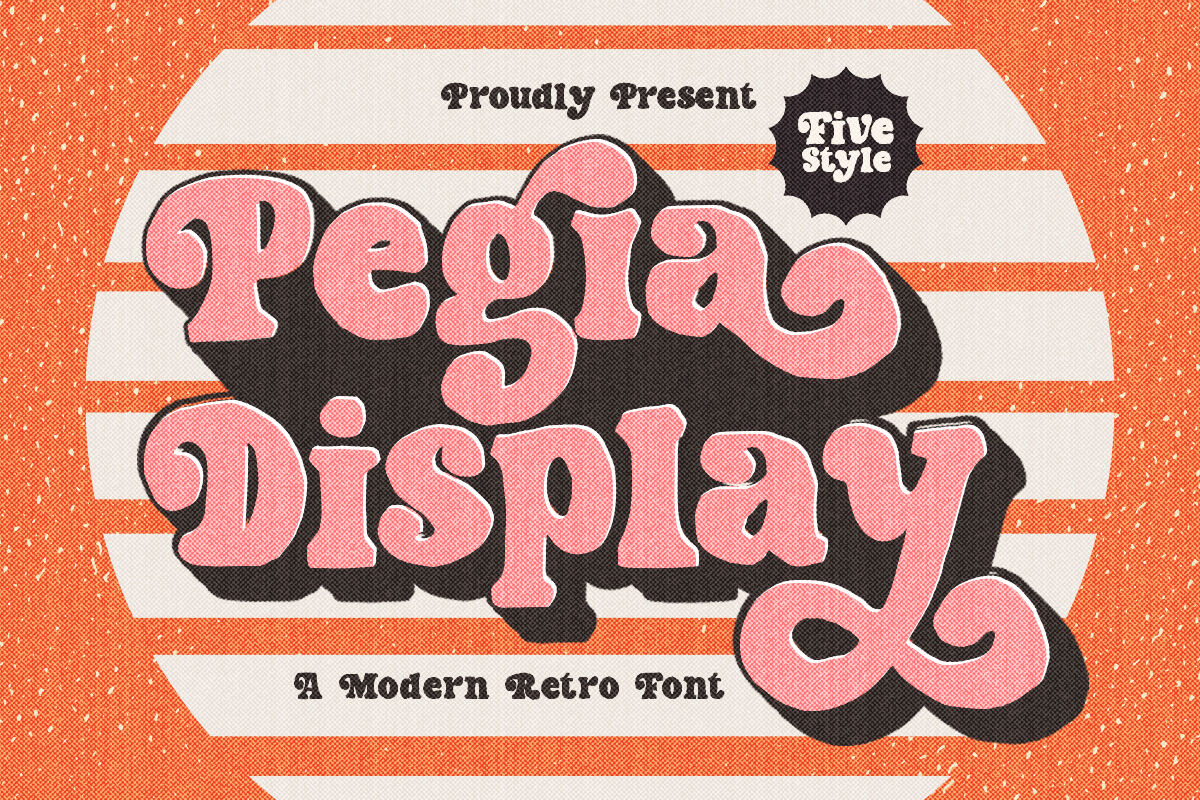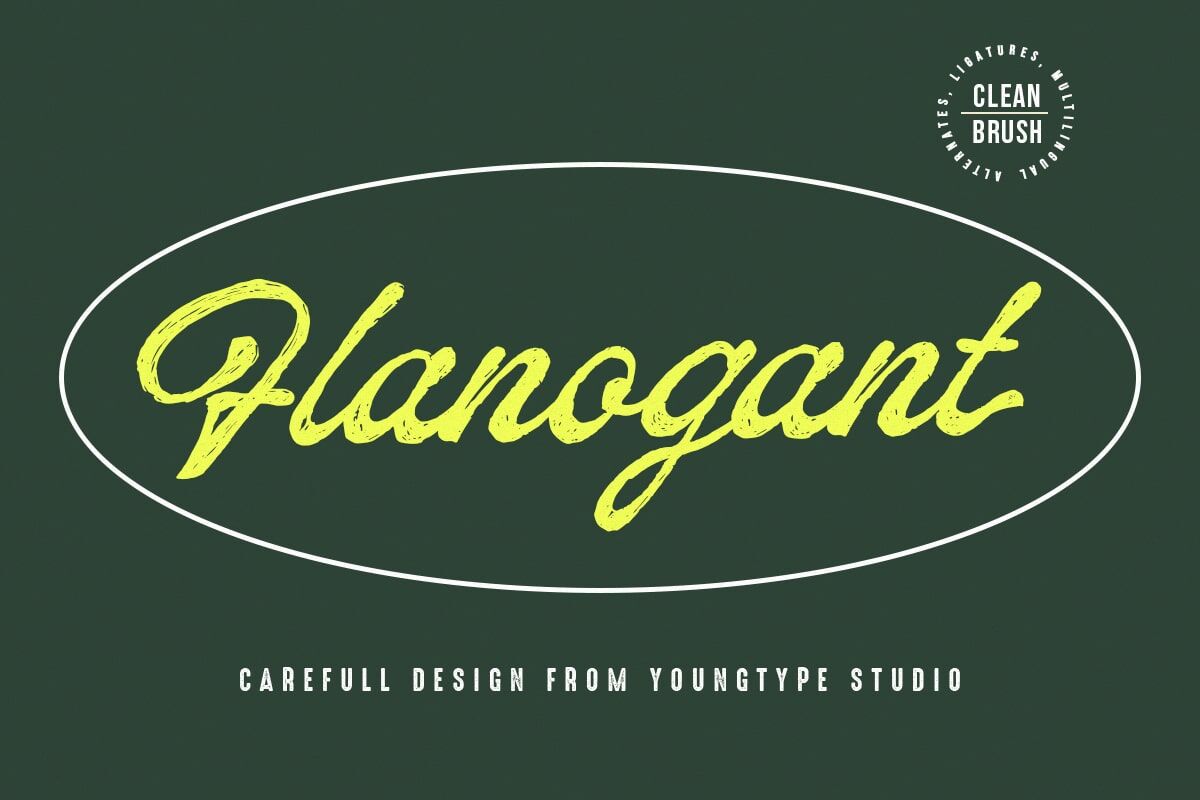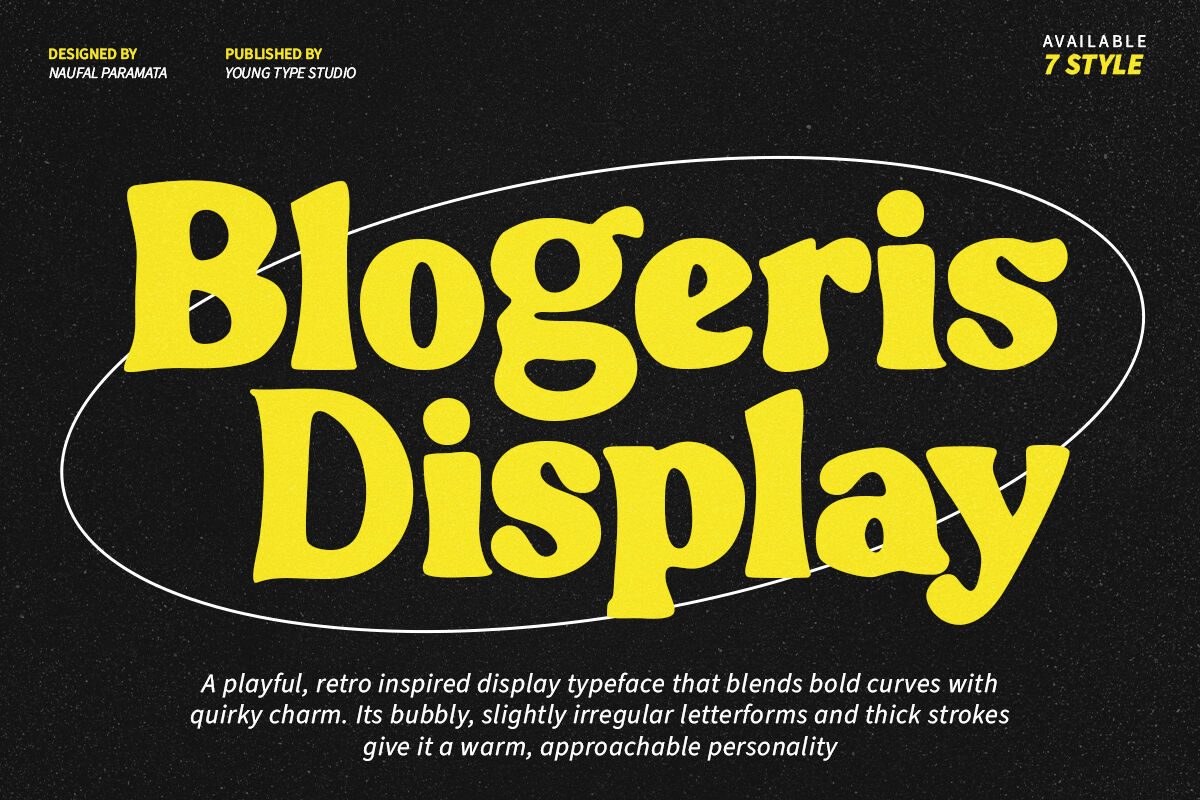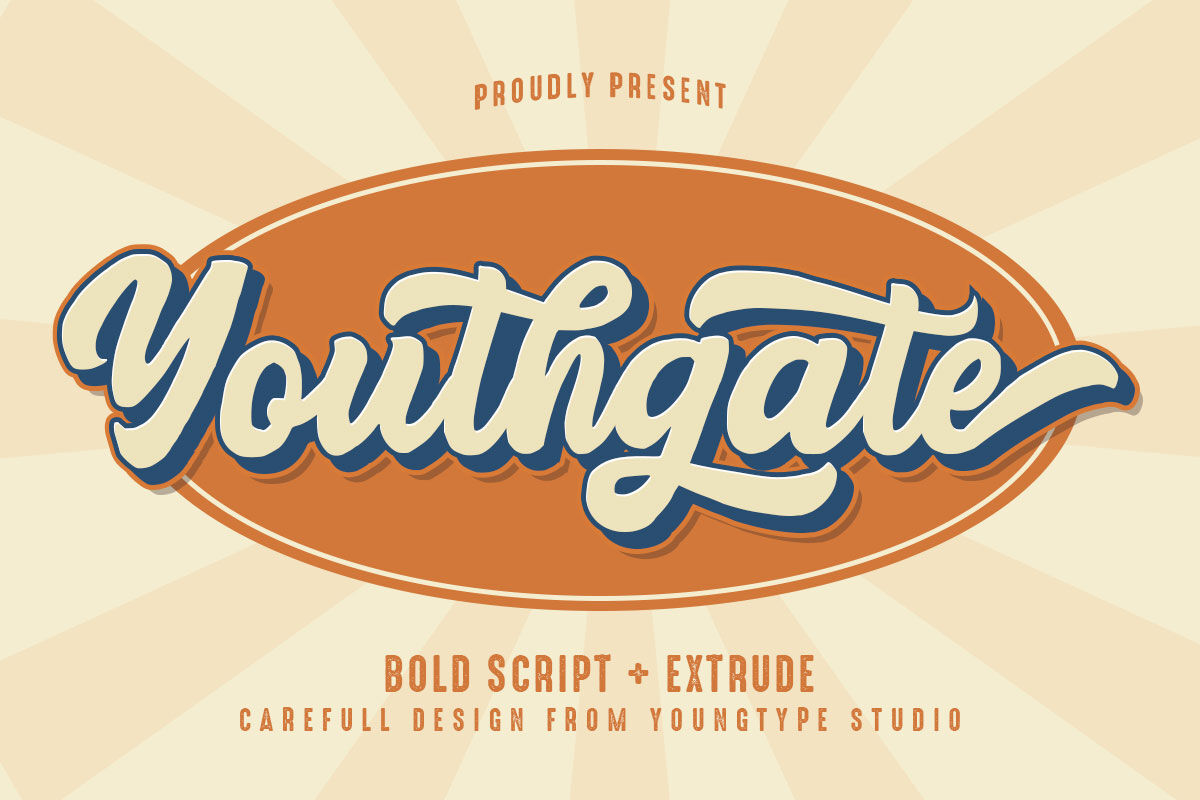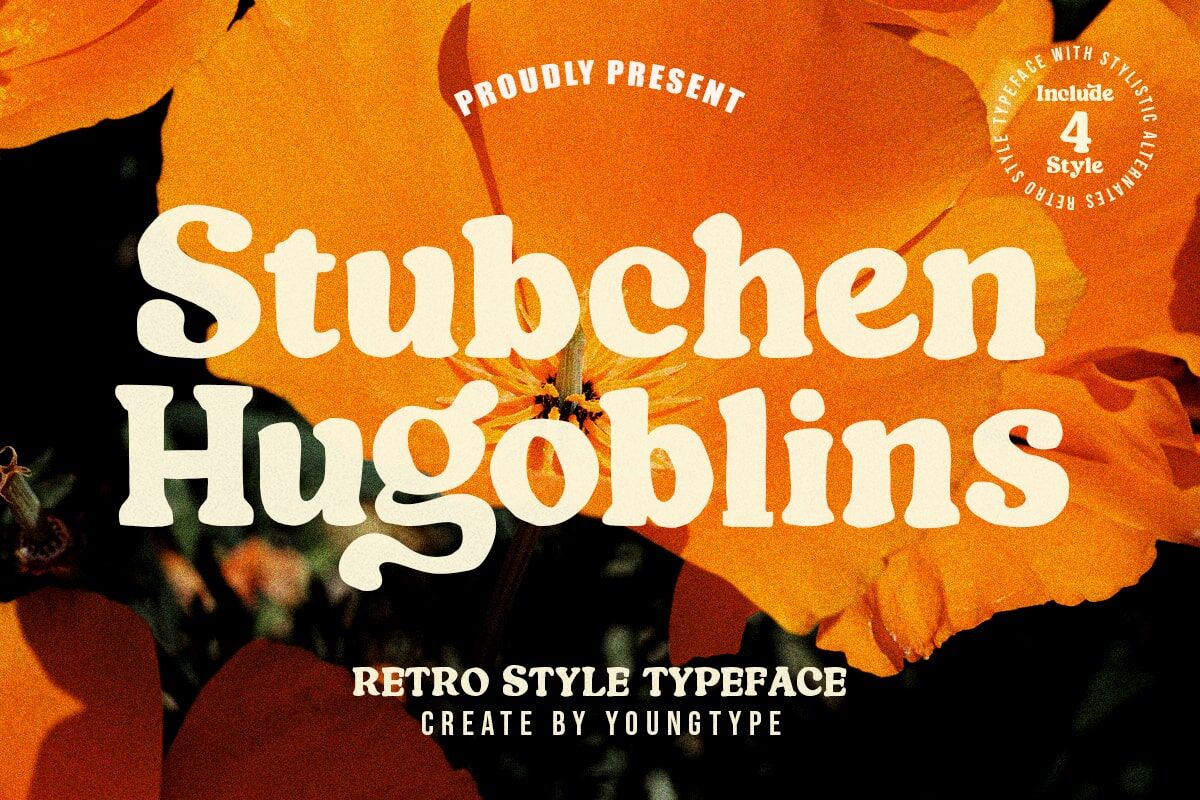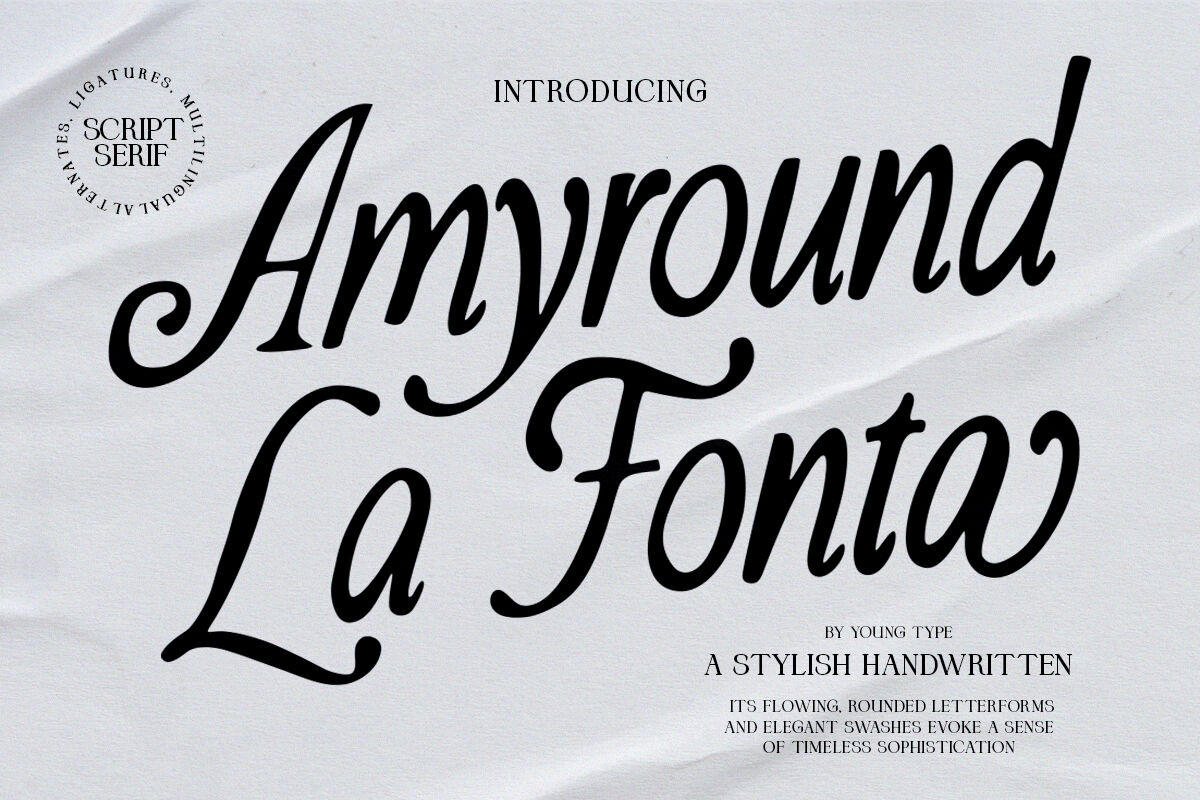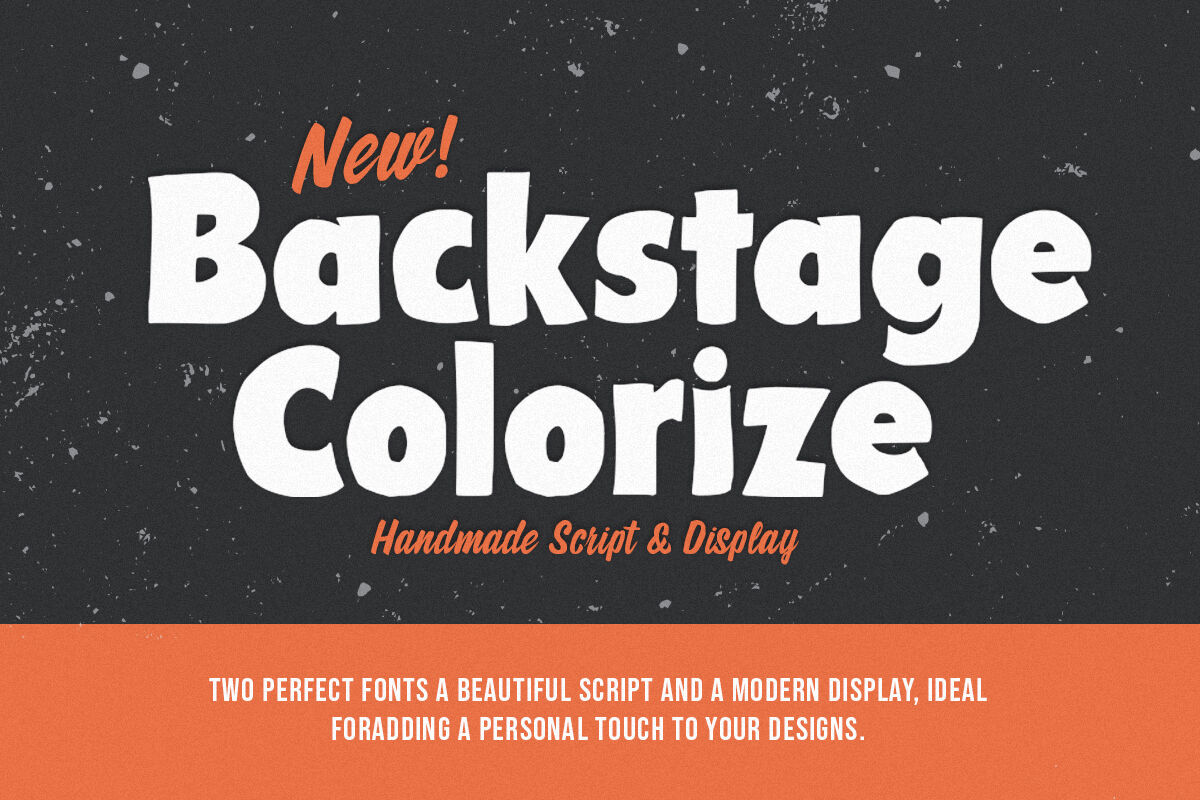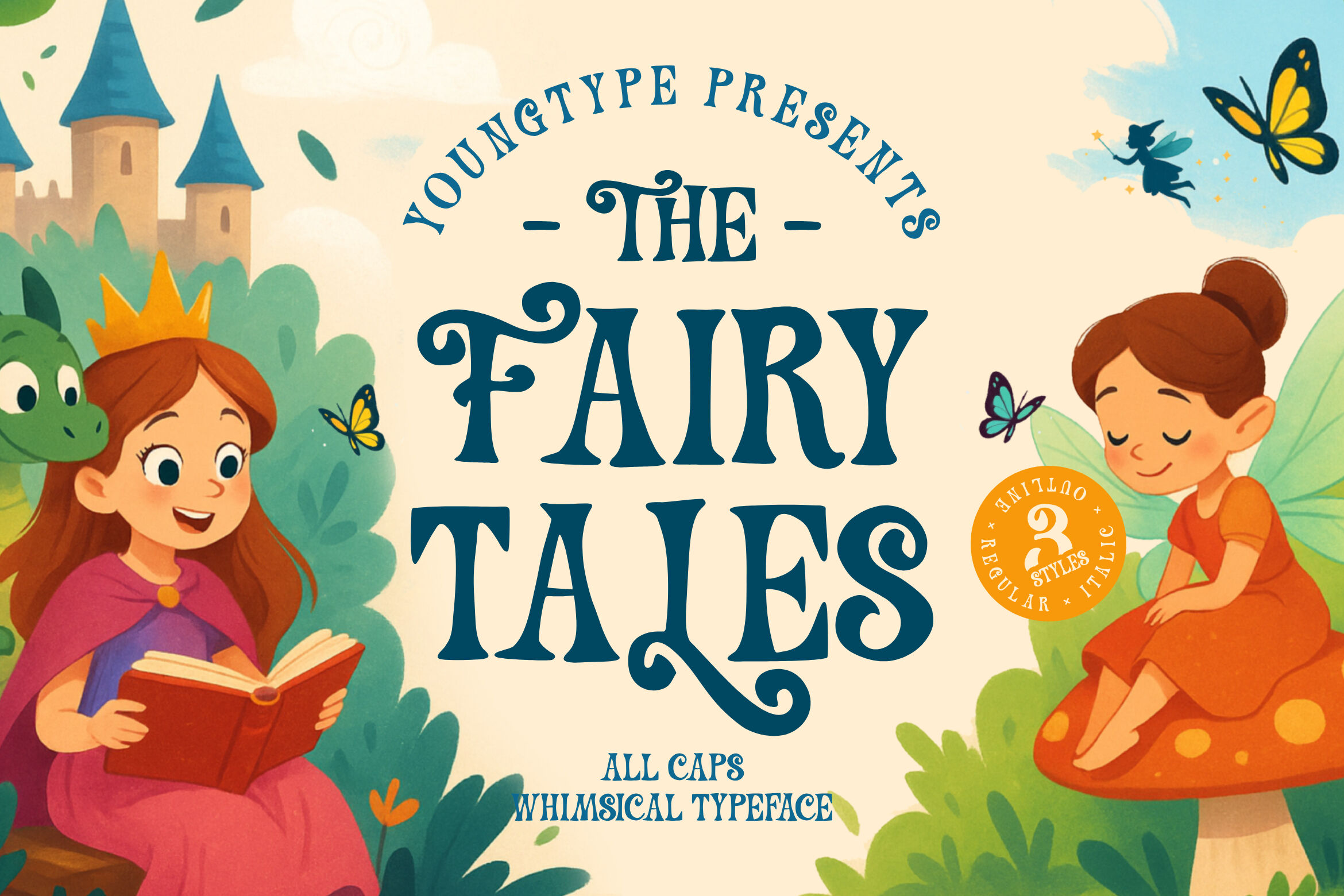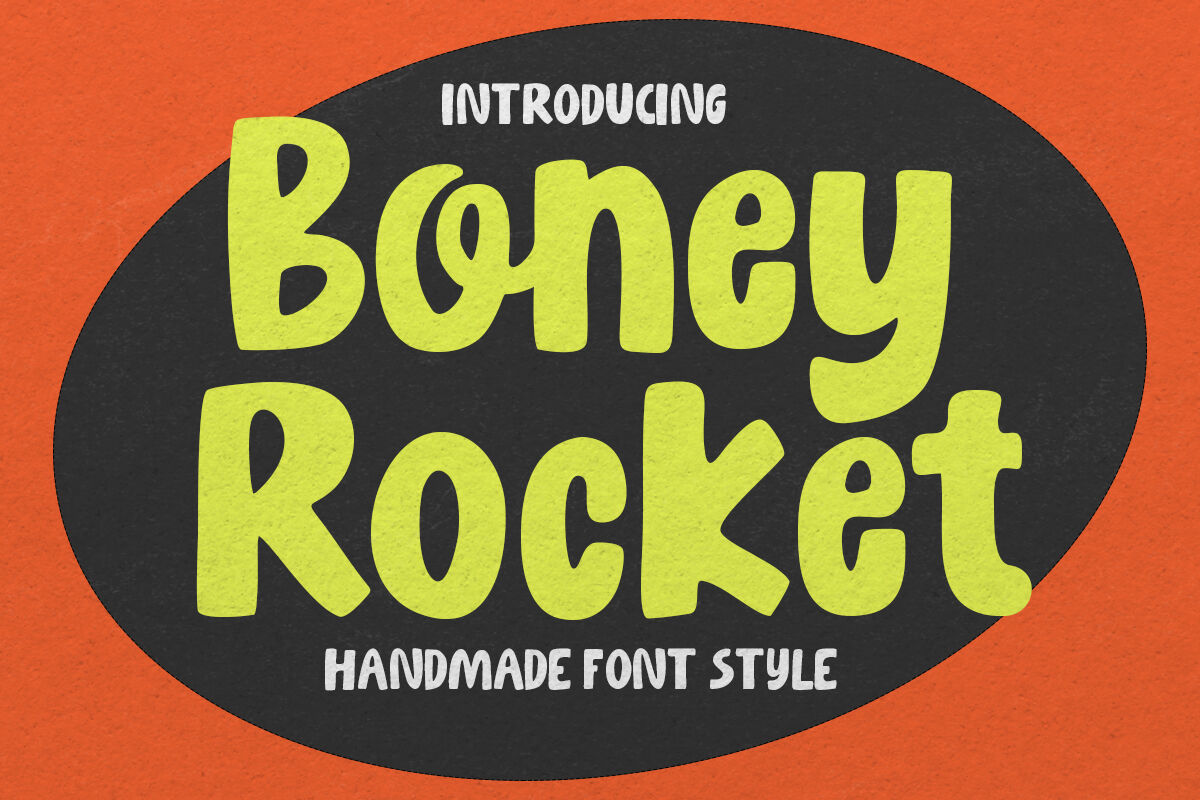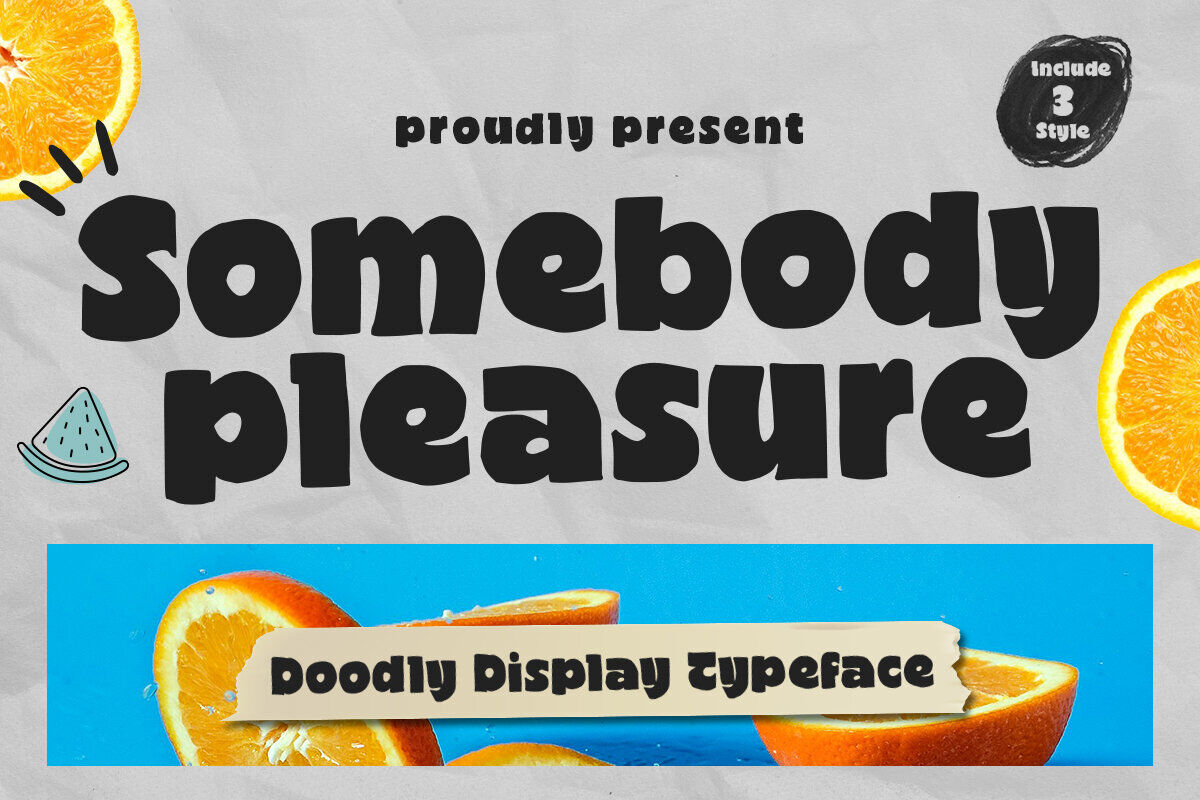
This is a specially curated bundle featuring beautiful and stylish fonts ideal for wedding designs, invitations, and romantic-themed projects. The main highlights of this bundle are:
Includes: 124 items consisting of 76 unique fonts, offering a wide variety of styles from elegant scripts to playful and retro typefaces.
Design Focus: Tailored for romantic and wedding-related aesthetics, but versatile enough for branding, logos, posters, and more.
Font Variety: The preview showcases a diverse range of font styles including handwritten, vintage, retro, serif, sans-serif, textured, and decorative fonts.
Examples in the Bundle: Fonts like Estella Script, The Tragic Romantic, Sexophone Rhythm, Astrologer, Youthgate, Queens, Pegia Display, and Backstage Colorize give a glimpse into the bundle's rich variety.